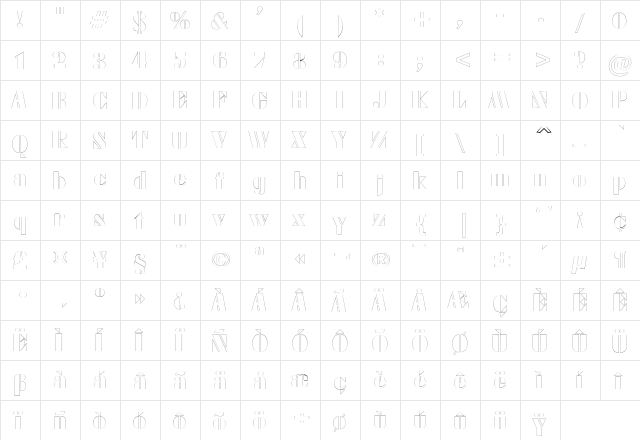
ArmyBlackOutline-Plain Regular
Design Context for ArmyBlackOutline-Plain Typeface
ArmyBlackOutline-Plain has the no-nonsense character of military stencilling and tactical signage, projecting authority and directness.
Designed for tactical branding, military-inspired apparel, action game UI, and utility-focused signage.
Pro Tip: Use ArmyBlackOutline-Plain at medium-to-large sizes where its utilitarian structure can be appreciated — the character detail gets lost at small sizes.